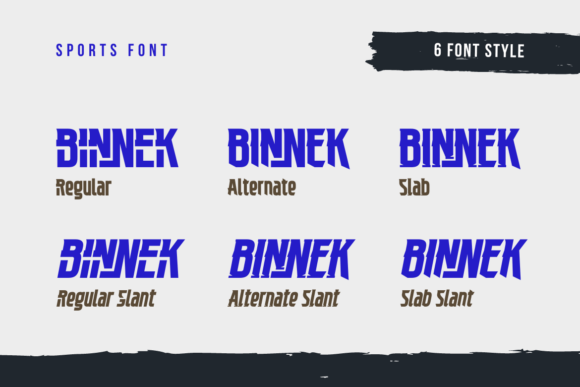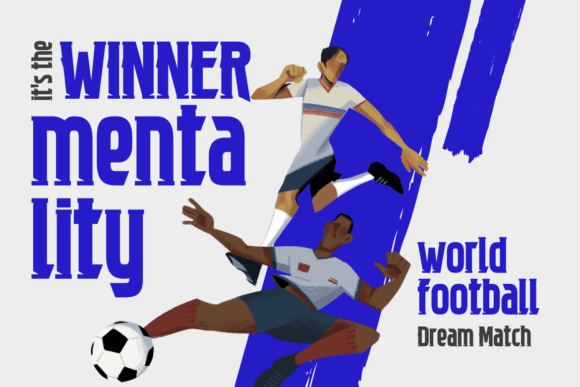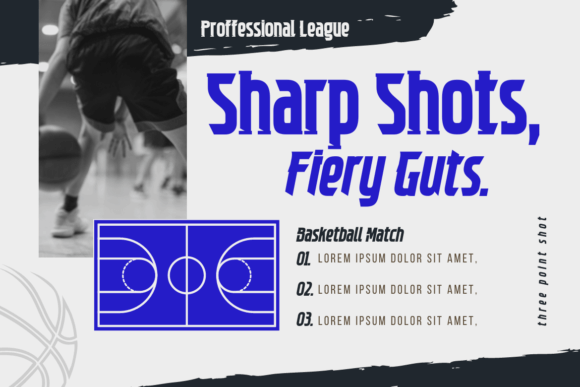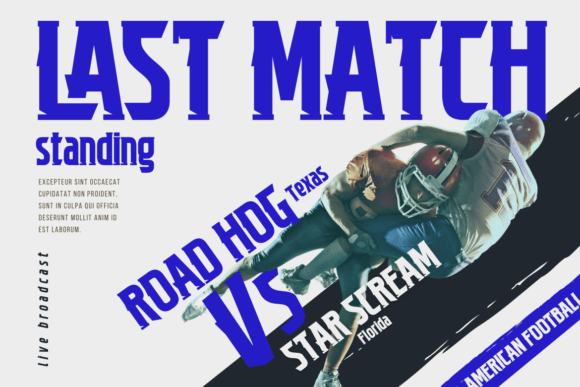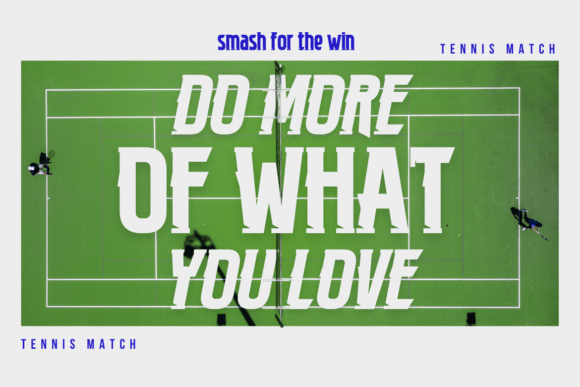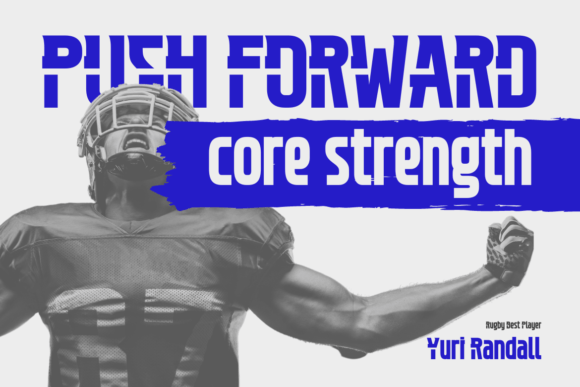
Introducing Binnek Font: The Ultimate Choice for Sporting Events and Outdoor Advertising
In the world of typography, fonts play a crucial role in conveying messages and creating a lasting impression. When it comes to sporting events and outdoor advertising, the font used can make all the difference. This is where Binnek Font comes into play. Designed to cater to the demands of outdoor sports and advertising, Binnek has become a popular choice among designers and marketers. In this article, we’ll explore the features and benefits of Binnek Font and why it’s the perfect choice for your next project.
The Rise of Outdoor Sports and Advertising
Outdoor sports have gained immense popularity over the years, with millions of people participating in various activities such as hiking, biking, and running. This surge in outdoor sports has led to an increased demand for effective advertising solutions that can capture the attention of enthusiasts and athletes alike. One crucial aspect of outdoor advertising is typography, as it needs to be clear, readable, and visually appealing, even from a distance.
What Makes Binnek Font Stand Out?
Binnek Font is specifically designed to meet the needs of outdoor advertising and sporting events. This versatile display typeface features a range of styles, including sans, slabs, sharp edges, and beveled variations. The result is a font that can be used in high-speed situations while still maintaining a contemporary tone. Whether you’re creating a billboard, poster, or social media graphic, Binnek Font is the perfect choice.
Key Features of Binnek Font
- Variety of Styles: Binnek Font offers a range of styles, including sans, slabs, sharp edges, and beveled variations, making it a versatile choice for different design projects.
- High-Speed Legibility: The font is designed to be readable even at high speeds, making it perfect for outdoor advertising and sporting events.
- Contemporary Tone: Binnek Font has a modern and sleek design, ensuring that your message is conveyed in a stylish and sophisticated manner.
- Attention-Grabbing: The font’s unique features and bold style make it perfect for grabbing the attention of your audience.
Why Choose Binnek Font?
Using Binnek Font for your design project sends a clear message: you mean business. The font’s bold and modern design conveys confidence and professionalism, making it perfect for brands that want to make a statement. Additionally, Binnek Font is highly versatile, allowing you to use it across various design projects, from outdoor advertising to digital media.
Tips for Using Binnek Font
To get the most out of Binnek Font, here are some tips to keep in mind:
- Use it for Headlines: Binnek Font is perfect for headlines and titles, where you want to grab the attention of your audience.
- Experiment with Styles: Try out different styles of Binnek Font to find the one that works best for your project.
- Pair it with Other Fonts: Binnek Font can be paired with other fonts to create a unique and visually appealing design.
In conclusion, Binnek Font is the perfect choice for sporting events and outdoor advertising. Its versatile design, high-speed legibility, and contemporary tone make it a popular choice among designers and marketers. Whether you’re creating a billboard, poster, or social media graphic, Binnek Font is sure to make a statement. So, next time you’re looking for a font that can convey confidence and professionalism, consider Binnek Font.
As a designer or marketer, you know the importance of typography in creating a lasting impression. With Binnek Font, you can rest assured that your message will be conveyed in a stylish and sophisticated manner. So, why wait? Try Binnek Font today and take your design project to the next level.